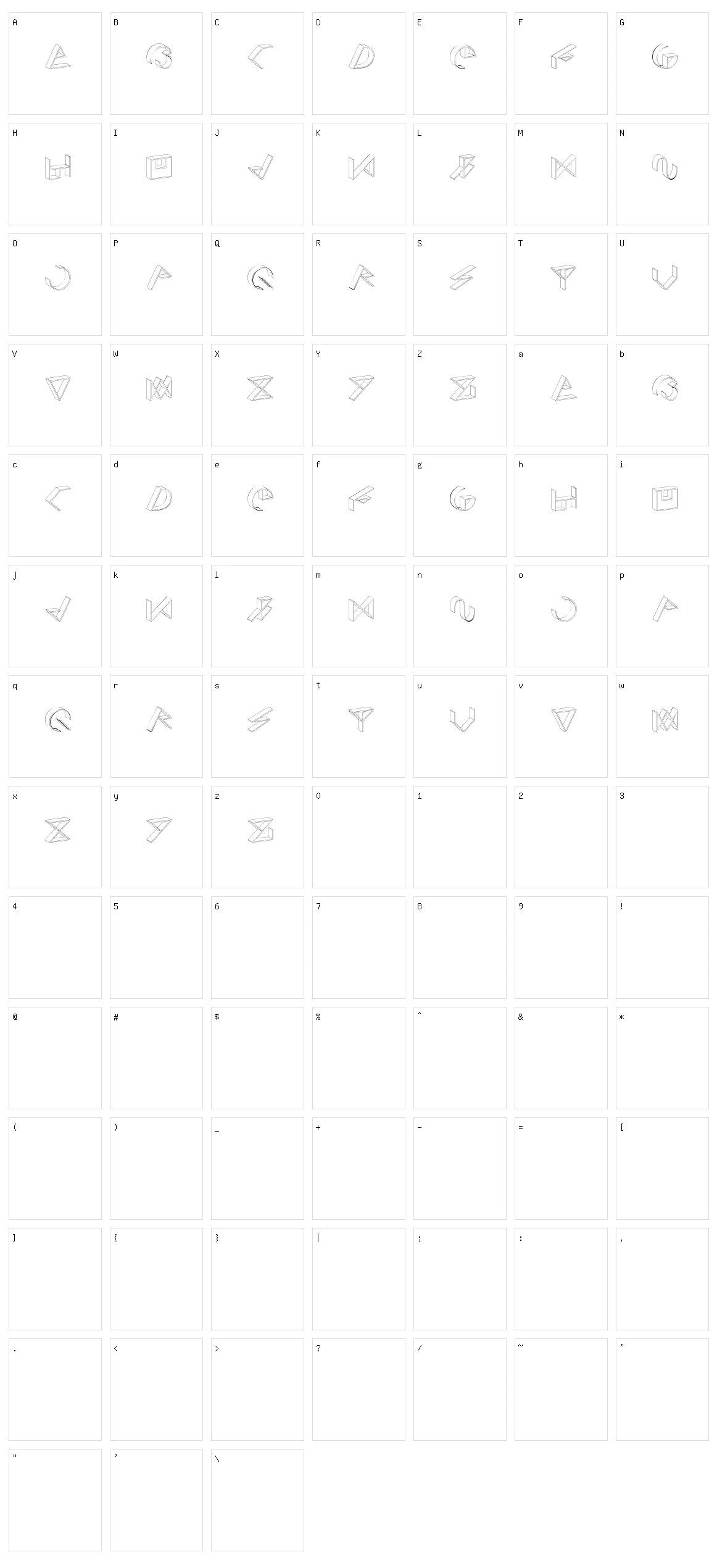
The free font Simo Cosmo Type is carefully designed by Monica Simo, showcasing a thoughtful balance of creativity and usability and falls under the Decorative font style. When you download the ZIP file, it contains only 13.44 KB of font files, making it lightweight and quick to download. Please review the license details below to understand permitted usage and distribution rights. If license information is not available, we recommend using this font for personal projects only or contacting the author directly for commercial usage permissions.